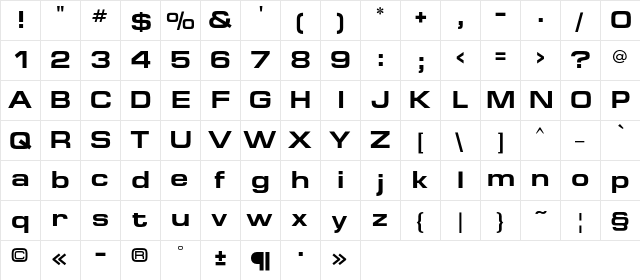
EuropeExtendedC Bold Font Preview
EuropeExtendedC Bold
EuropeExtendedC Bold Font Details
Design Context for EuropeExtendedC Typeface
EuropeExtendedC takes a measured approach to typography — its balanced proportions and neutral character make it a reliable workhorse for both digital and print work. Its bold stroke weight gives it real presence on the page.